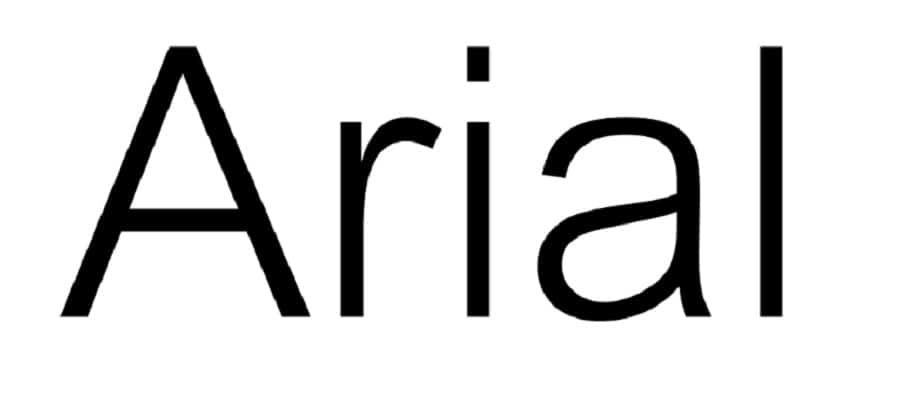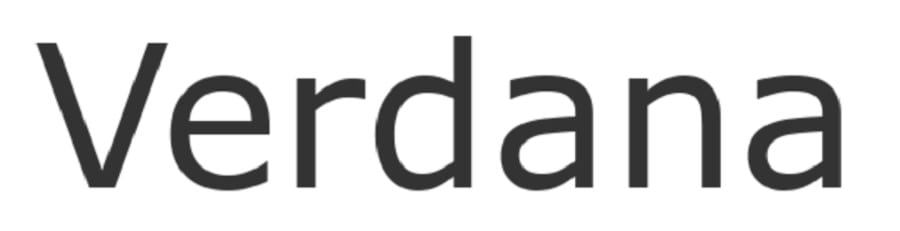
Your website design is often the first impression potential clients have of your business. Finding the best font for a header shows your personality as a brand but is readable and builds trust is a big hill to climb. The best fonts for headers may have been used so many times you feel they are overdone and you want something a bit different.
Thankfully, we’ve done a lot of the research for you over the years, stayed up-to-date on new releases and trends and have a lot of ideas about which fonts work well for headers and how to pair different ones for an engaging look that draws readers in.
We’ve included the best fonts for headers that you likely have seen and heard of many times. However, we also added some new ones you may not know. Our favorite fonts to use in website headers, but that also work in headers for social media and emails, include the following:
1. Arial
In a previous study by Smashing Magazine, researchers found 80% of sites they studied used one of the first three fonts we’ll list here. These fonts come preinstalled with programs such as Adobe, Canva and Microsoft Suite. Another 20% used Helvetica as an alternative.
Arial and the other two fonts are also highly readable at various sizes. Arial is defined as a neo-grotesque sans serif typeface. Robin Nicholas and Patricia Saunders designed the font. Arial released in 1982 through Monotype. Many pointed to the similarities to Helvetica.
The curves of the letters are soft but structured. End strokes are diagonal, which creates a less computerized look than some other sans serif fonts. Arial is often used in presentations, magazines and newspapers. It scales up or down equally well. It’s a perfect basic font for header text, including menu lettering.
2. Georgia
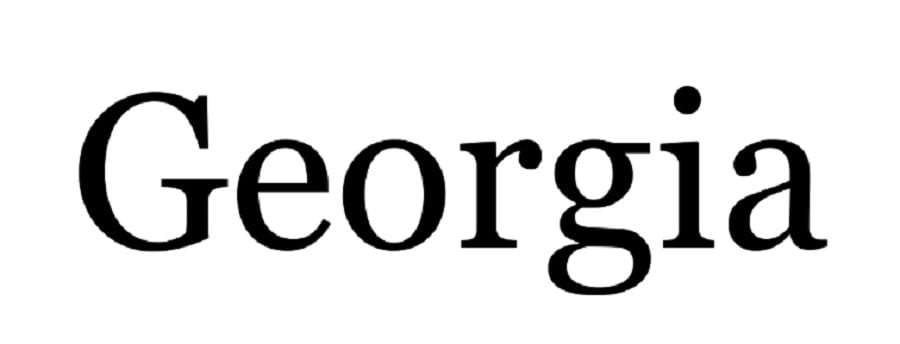
We’d be remiss if we didn’t include Georgia in our list of best fonts for headers. The font comes pre-packaged with many programs.
Georgia is a serif font that looks a bit formal. The font was initially compatible with Windows and Mac computers, creating a sort of cult following amongst designers.
The font works well for bank websites, luxury products and wedding services. Depending on your clientele, photographers might also benefit from using Georgia in their headers.
Variations of the strokes on various portions of letters give the font some definition that has an almost calligraphic look. Some of the letters blend into one another for continuity. You might also notice the lowercase letters have a tall x-height, filling space and giving the font a unique appearance.
3. Verdana
Verdana is called a humanist sans serif font. Matthew Carter and Thomas Rickner joined forces to create the beautiful structure for Microsoft.
Pixel patterns create a hand-crafted look to ensure users don’t confuse some of the letters that look similar to one another in lowercase, such as “i,” “l” and the number one. If you work with the font frequently, you likely realize the dot over the letter “i” is square. Such minute details avoid reader confusion and improve comprehension. However, the font can present some kerning challenges thanks to some letters being sider than others.
Verdana is frequently used for headlines. You may need to work a bit longer to get the spacing figured out, but the end result will be an elegant and eye-catching headline for your site.
4. Helvetica
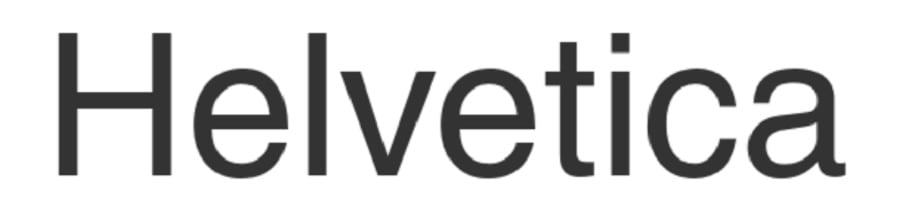
Another font commonly listed in groupings of best fonts for headers is Helvetica. We wanted to include it because it’s like an old friend you don’t just abandon as new things come into your life. This will be the last of our popular fonts. The rest will focus on lesser known options.
Eduard Hoffmann and Max Miedinger designed Helvetica in 1957 in Switzerland. It is another neo-grotesque sans serif typeface.
The font’s design is meant to be neutral and not evoke emotions in the reader. Helvetica is frequently used by designers and large corporations. Terminations are either vertical or horizontal without the slants of some other san serifs. Fortunately, the font is easily adaptable to both Windows and Mac operating systems and translates well on all screen sizes.
5. Isadora
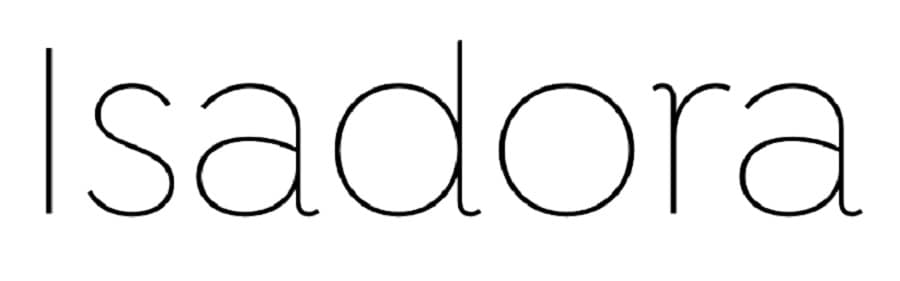
If you’re seeking something a bit thinner and less formal looking, Isadora is a fun font you can utilize in your headers. It comes in a variety of weights, so select the one that looks the best with your background and other elements.
Pictured above is Isadora Light, which features thin lines and slight serifs on some terminations. Note how swoopy and perfect the lowercase “a” is. The typeface reminds one of beautiful handwritten notes or informal invitations to parties.
6. Prossima Moda
If you really want to use a script but you know it won’t translate well on mobile devices, try something like this font for your website header. It is a newer font but quite unique in its ligatures and terminations.
Prossima Moda is a modern display font that speaks to sophistication and informality at the same time. The contrast within the font gives it some mystery so the reader is never sure what the next character might do.
Create Your Own Style — The Best Font for a Header
The best fonts for headers are the ones that speak to your personality as a brand. While the list above is an excellent starting point, seek out new fonts and established ones and try different combinations until you hit on the most aesthetically pleasing but functional design possible.